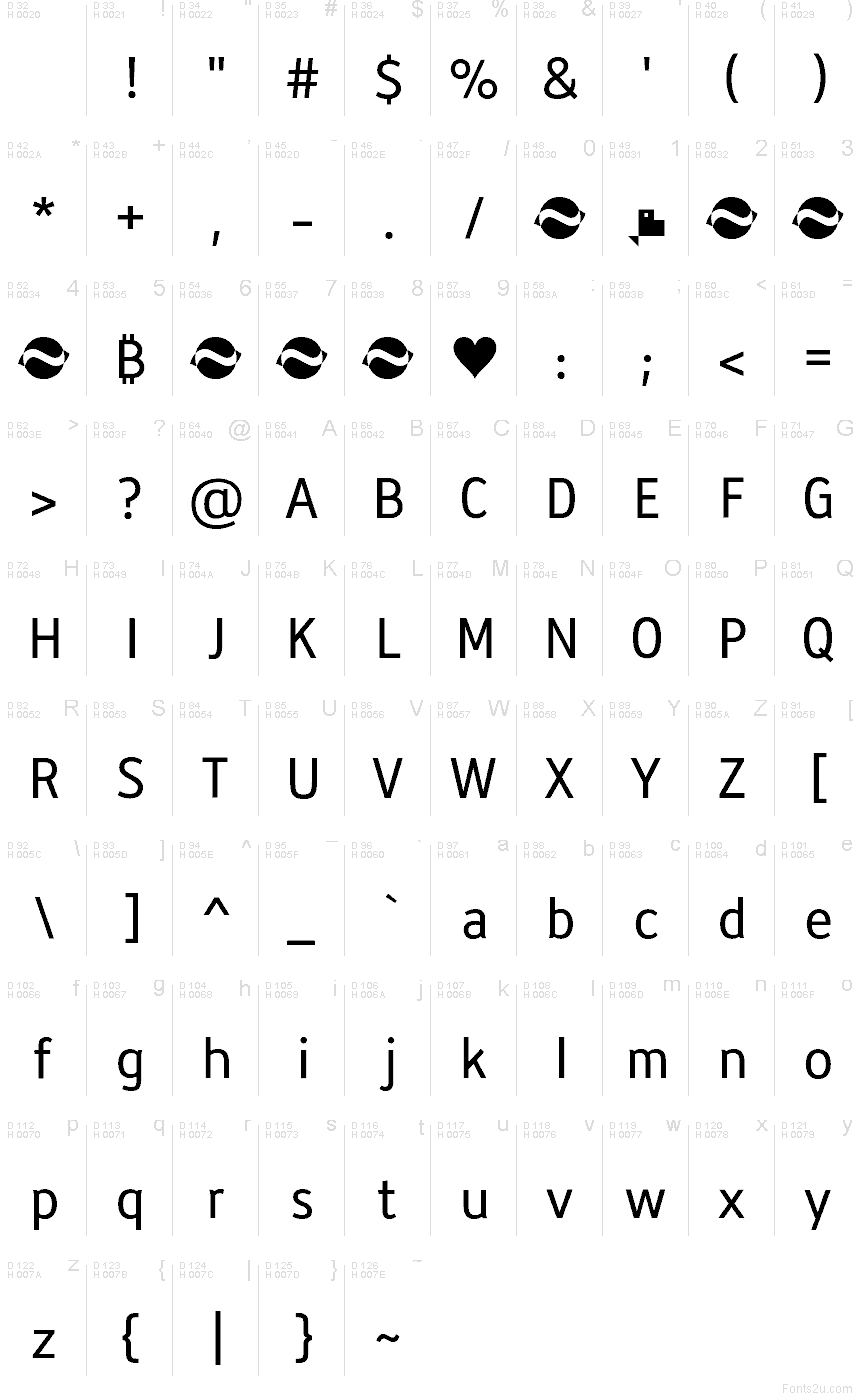
Biotrip Regular
Biotrip font by Fernando Haro of deFharo is a free humanist sans serif font that quietly cleans up cluttered layouts. Its letters are tall and open, with smooth, almost organic curves that keep long text airy while still looking firm and confident. The stroke weight feels even and dependable, so words line up in a calm, steady rhythm that’s easy on the eyes on both screens and print.
Using Biotrip, you get a neutral voice with a subtle warm edge, great when you need clarity without cold minimalism. This free font works beautifully for UI labels, app interfaces, body copy on tech or eco websites, clean branding systems, editorials, and pitch decks. Try pairing Biotrip with a contrasting serif headline typeface, and keep Biotrip a size or two smaller for dense text to showcase its smooth readability.
Biotrip Sans is a friendly typeface family that is, above all, a journey. A journey (Trip) from the purity of geometry to the warmth of the organic (Bio).
Biotrip Sans comprises 14 methodically designed fonts, distributed across 2 styles (Regular and a genuine, flowing Italic) and 7 weights, ranging from the ethereal elegance of Light to the powerful impact of Black.